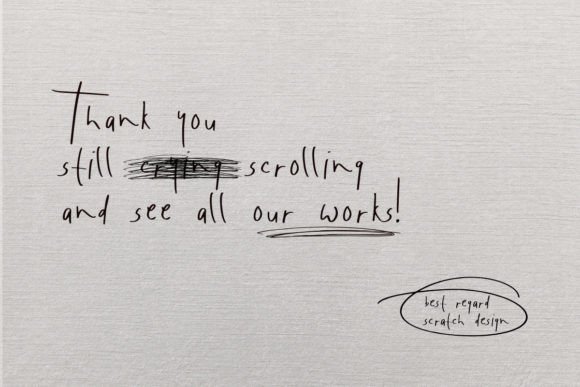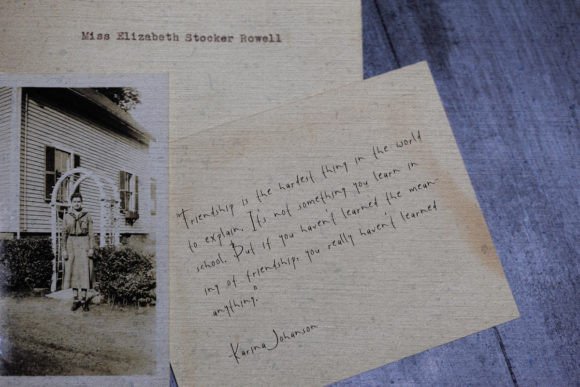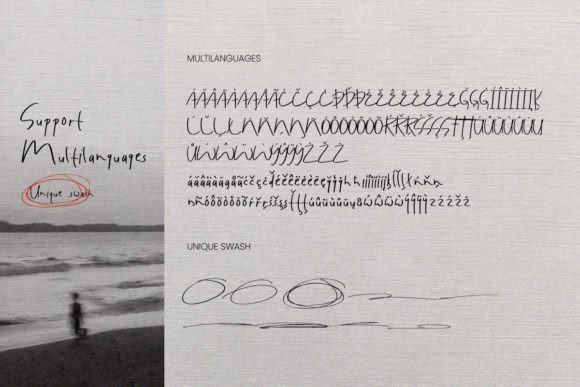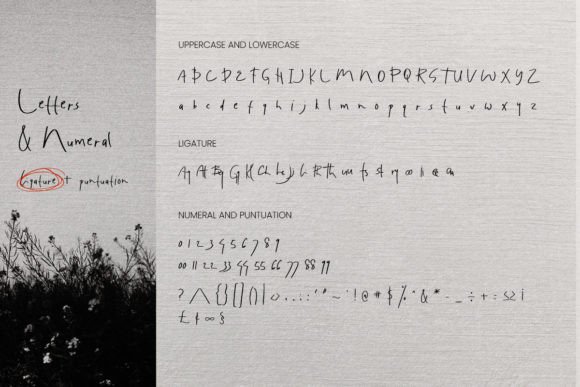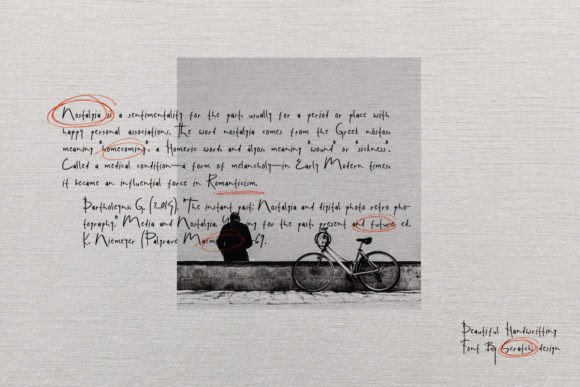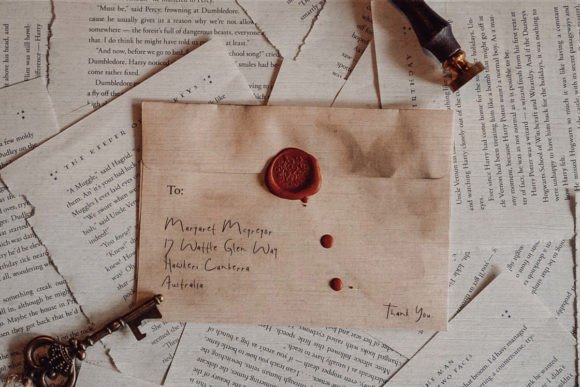
The Diary Indie Font: A Handwritten Gem for Creative Projects
I still remember the design project that led me to discover the Diary Indie font. I was working on a handmade card for a friend’s birthday, and I was struggling to find the perfect font to give it a personal touch. The project required a font that was both elegant and playful, but nothing seemed quite right. That was until I stumbled upon Diary Indie, an authentic handwritten font that instantly captured the feel I was going for.
An Honest Review of Diary Indie
I’ve had the pleasure of working with Diary Indie on various projects, and here’s my honest review:
- ✨ Natural Character: Diary Indie has a beautifully natural character that feels like it was written by hand.
- ✅ Versatility: This font is incredibly versatile and works well for a variety of projects, from crafts and digital design to presentations and greeting cards.
- 💫 Aesthetic Appeal: The font has a lovely aesthetic appeal that adds a personal touch to any project.
- 🤔 Limited Formality: While Diary Indie is perfect for informal projects, it may not be suitable for more formal designs.
- ⚠️ Legibility at Small Sizes: Like many handwritten fonts, Diary Indie can be less legible at very small sizes.
The Backstory of Diary Indie
Diary Indie was created with the intention of mimicking the natural flow of handwriting. The designer aimed to capture the essence of a personal diary entry, making it perfect for projects that require a personal touch. While the exact details of the designer are not widely known, the font’s popularity speaks to its well-crafted design.
| Author | Scratch Design |